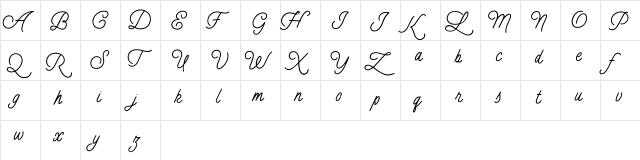
Lany Jesty Free Regular
| Foundry | Maulana Creative |
| Designer | MaulanaCreative |
Design Context for Lany Jesty Free Typeface
Lany Jesty Free takes a measured approach to typography — its balanced proportions and neutral character make it a reliable workhorse for both digital and print work.